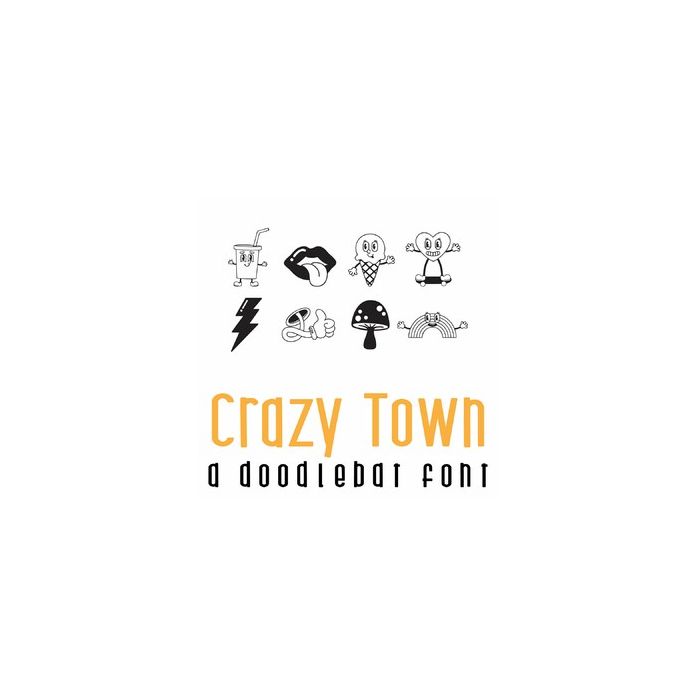
Crazy Town Doodlebat Font
This fun doodlebat font features 26 retro style iconic imagery. Perfect for cards, gifts, decor, crafts, scrap book pages, planner stickers and more!